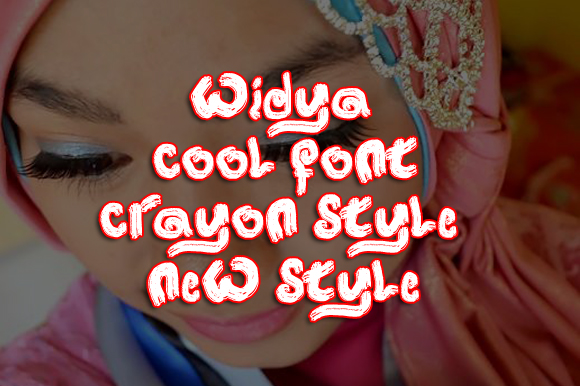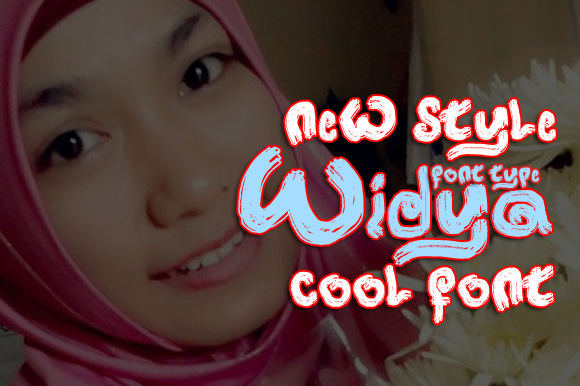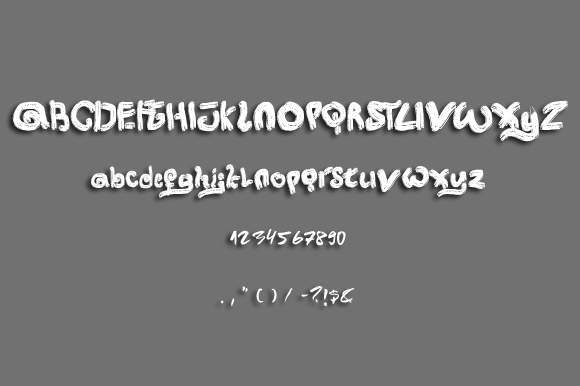
HomeScript FontsWidya Font Script Fonts Widya Font FacebookXPinterestWhatsApp Widya Font Poster 2 Widya Font Poster 3 Widya Font Poster 4 About Widya Font Widya, a strong bold brush font. DOWNLOAD NOW People also explored Mulane Font Aliqa Blountsville Script Font Eunoia Font Malrang Font Kinglet Duo Font Morris Duo Font Masa Marker Font Silver Midnight Font 262 0 TagsWidya Font Previous articleJhagat Raya FontNext articlePenasaran Font LEAVE A REPLY Cancel reply Comment: Please enter your comment! Name:* Please enter your name here Email:* You have entered an incorrect email address! Please enter your email address here Website: Save my name, email, and website in this browser for the next time I comment. Personal Use Free Mika Personal Use Free Read more about this font Autumn Flowers Font Personal Use Free Read more about this font Yesstea Personal Use Free Read more about this font BD Medled Personal Use Free Read more about this font BLOG How to Cut Any Font on Cricut: Convert a Font to SVG (Free) Turn any font into a clean SVG so it cuts crisp on Cricut - a quick 3-step workflow using a free font-to-SVG tool. Fonts That Capture the Spirit of New York City Elegant Wedding Invitation Fonts – Handwritten & Script Fonts Best Fonts for YouTube Videos: Make Your Thumbnails Stand Out